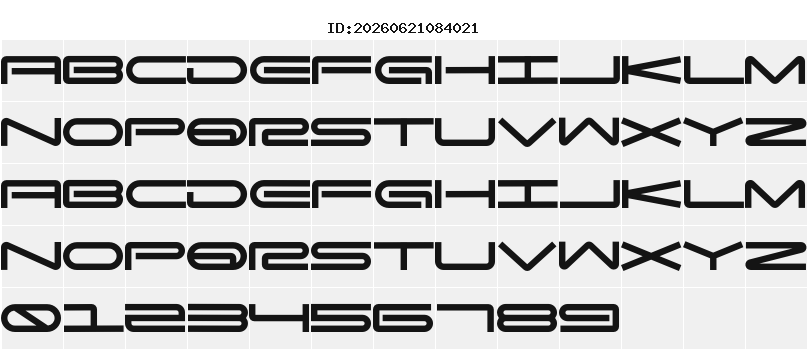
• Font Name: Zero G Ultra Wide
• Full Font Name: Zero G Ultra Wide
• Designer: Aromal Ashok
About Zero G Ultra Wide.otf
Zero G Ultra Wide.otf is a modern, elegant sans-serif font designed for ultimate readability and visual harmony. Perfect for branding, headlines, web design, and print materials.